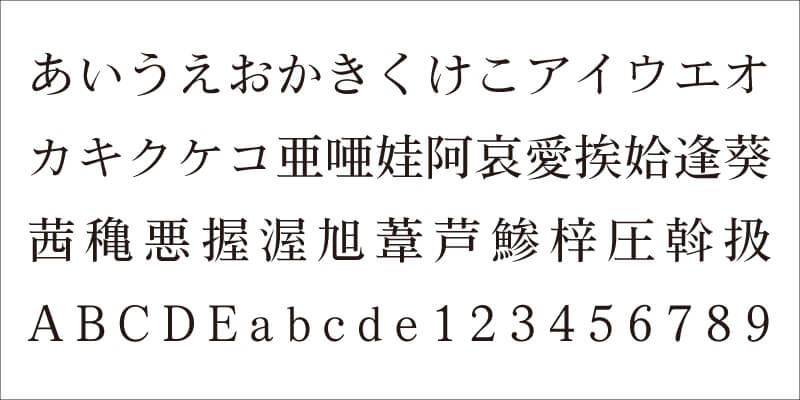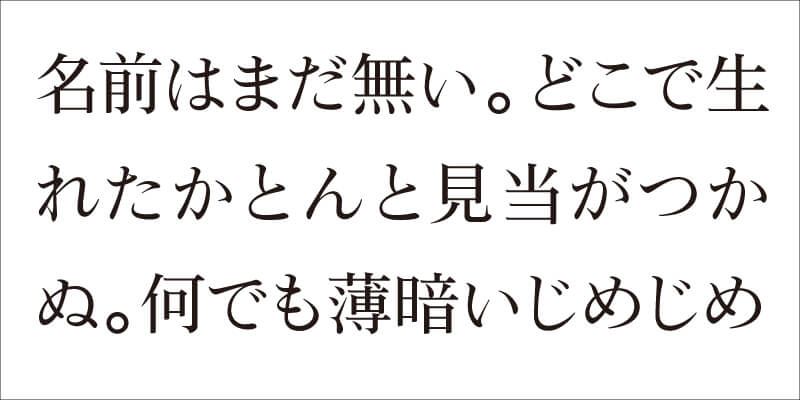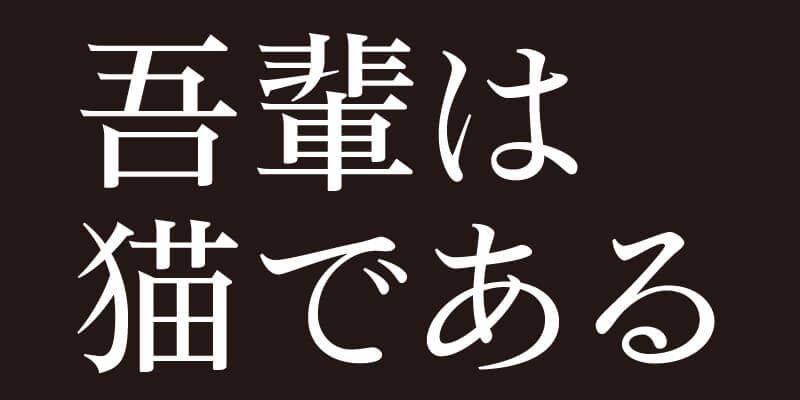
VDL-V7Mincho is a readable and beautiful Mincho-style typeface with sophisticated novelty meant to be used for body text. While the design is based on the traditional Japanese Mincho-style, VDL-V7Mincho has the capacity for adaptation; you can use it at small type sizes without undesirable cramped text. However, you will also have good and well-balanced results at large type sizes. The elegant stroke formation of VDL-V7Mincho makes your typeset results look brilliant.